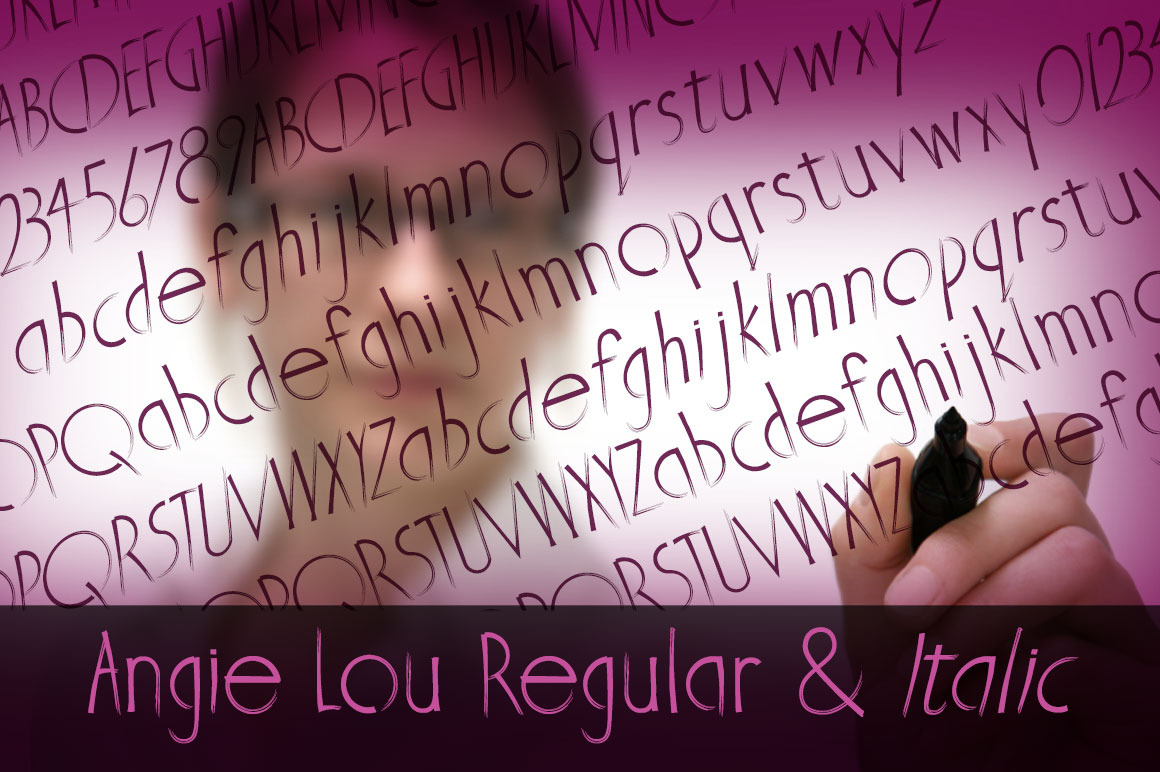
Angie Lou Font Family
About this font family Angie Lou is a contemporary clean informal face. More formal than most handwritten faces, it surprises the eye with its clean rhythm. It gives that “marker on paper” or “dry erase board” feel.
But the thin nature of Angie Lou sets it apart from most marker style fonts.
Angie Lou offers two variants: regular and italic.